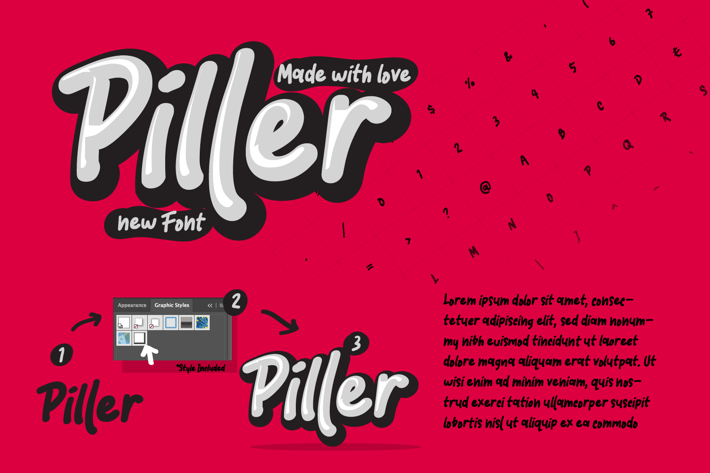
Piller the casual trendy font
Piller Casual font
Now! Style included to enhance the appearance of the font.
also small guide also included to maximize the usage of the font.
Good for:
Headline
Packaging
Posters
Clothes
* etc